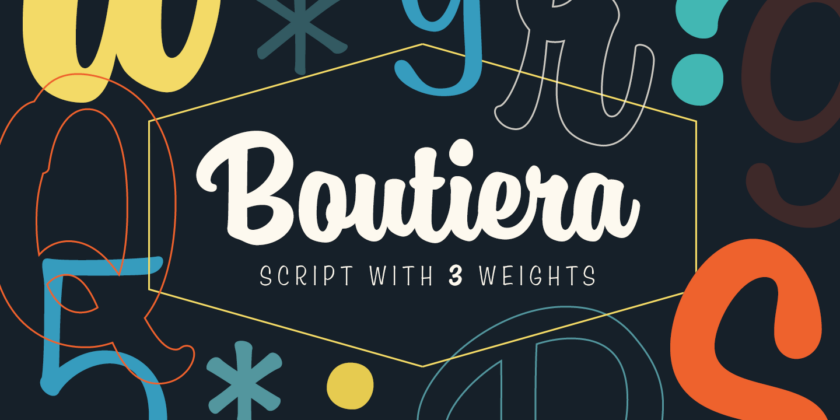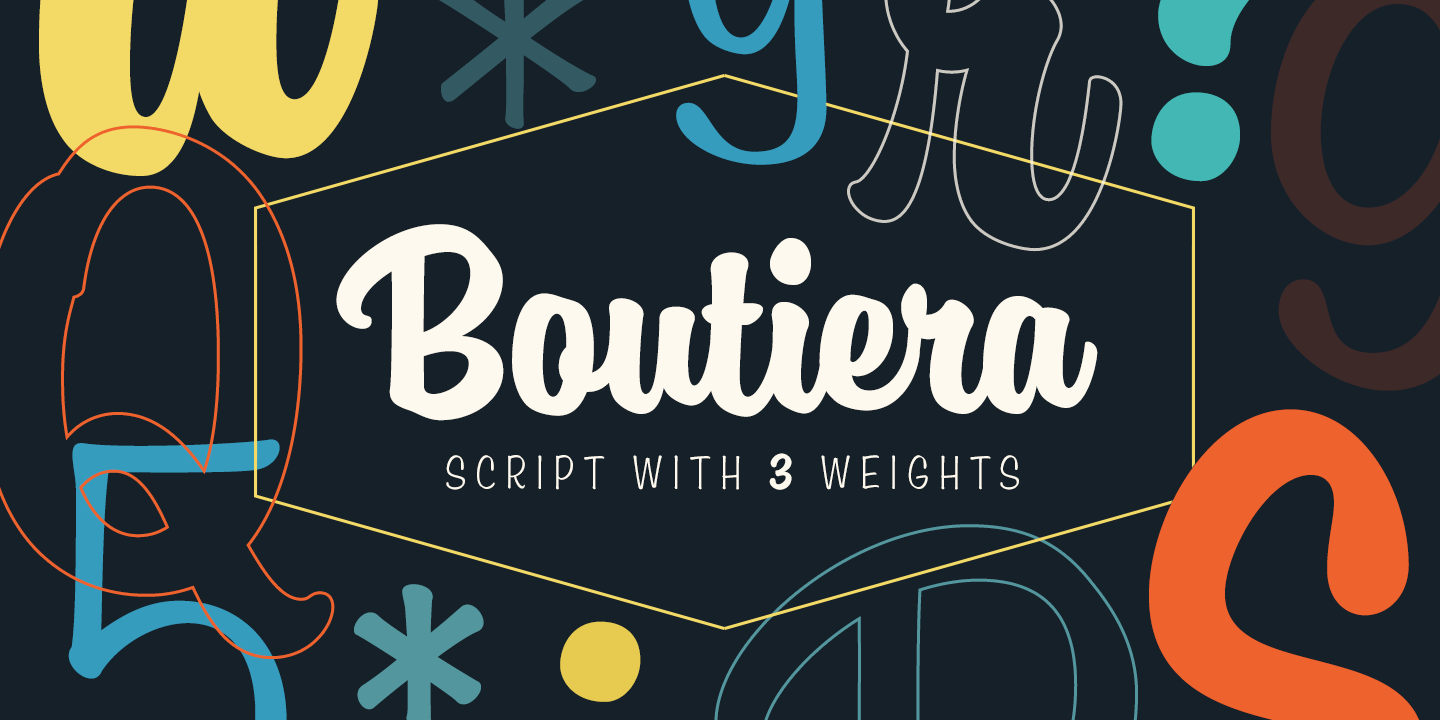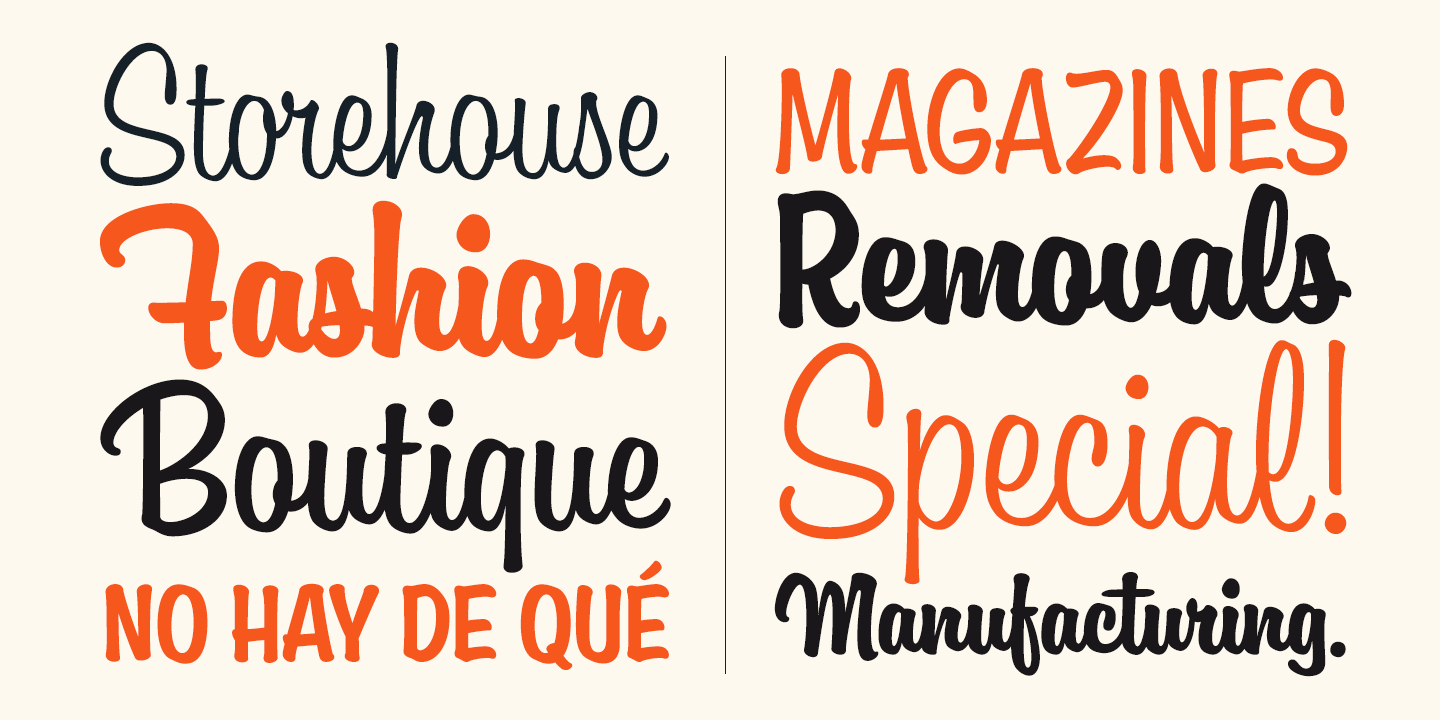
About Boutiera
Boutiera is an upright and soft vintage script with a modern twist. Its main characteristics are bouncy baseline, round forms and bumpy stems. These qualities gives Boutiera its casual, friendly and handmade looks. It has three weights to give contrast…